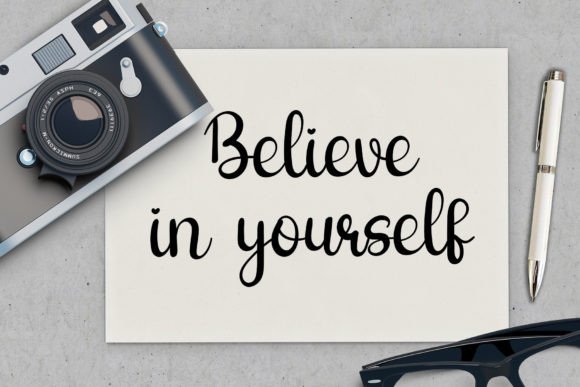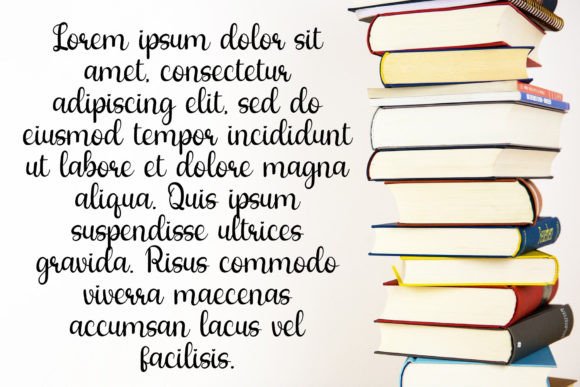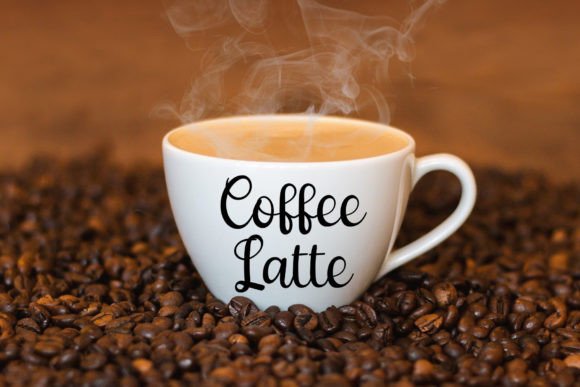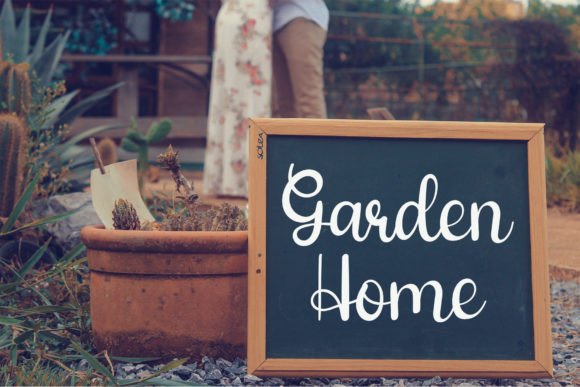
The Designer’s Delight: A Deep Dive into the Elegant Fallen Font
I’ll never forget the time I was working on a wedding invitation project, and my client asked for a font that was elegant, yet whimsical. I scoured the internet, tried countless fonts, but nothing seemed to fit the bill. That was until I stumbled upon the Fallen font. It was love at first sight! 💕 In this article, I’ll share my experience with this beautiful font, its features, and how to make the most of it in your designs.
An Honest Review of Fallen Font
What I Love About Fallen Font
- ✨ Unique and elegant handwritten touch
- ✅ Perfect for wedding invitations, greeting cards, and other formal designs
- 💫 Features a varied baseline, giving it a natural, hand-made feel
- 🎨 Great for adding a personal touch to logos, business cards, and billboards
While Fallen font is a stunning addition to any design, there are a few things to keep in mind:
- ⚠️ May not be suitable for body text or long-form content due to its elegant, yet cursive nature
- 🤔 Some characters may require manual kerning for optimal spacing
The Story Behind Fallen Font
Fallen font was created with the intention of capturing the essence of handwritten elegance. The designer aimed to create a font that felt natural, yet refined. Through careful attention to detail and a passion for typography, Fallen font was born.
| Author | GiaLetter |
Q: What type of designs is Fallen font best suited for?
A: Fallen font is perfect for designs that require a handwritten, elegant touch, such as wedding invitations, greeting cards, logos, and business cards.
Q: Is Fallen font suitable for body text?
A: While Fallen font is beautiful, it’s not ideal for body text due to its elegant, cursive nature. It’s best used for headings, titles, or short paragraphs.